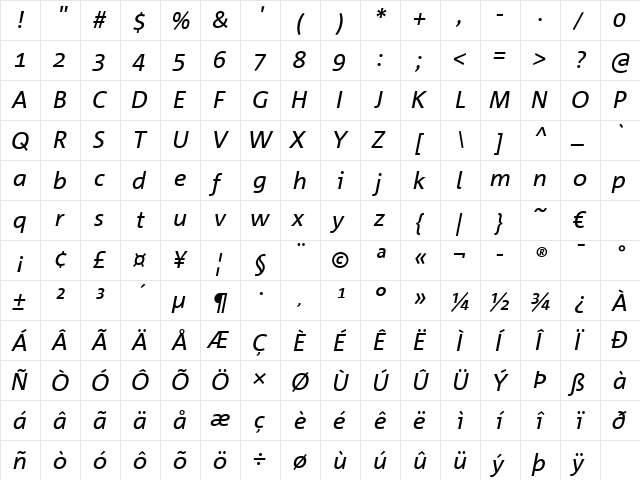
CorpidOffice Italic
| Designer | Luc[as] de Groot, FontFabrik |
Design Context for CorpidOffice Typeface
CorpidOffice is a composed and adaptable typeface that performs quietly and consistently across a wide range of design contexts. Its italic angle brings a sense of urgency and motion to the letterforms.
Pro Tip: Use CorpidOffice for emphasis, pull quotes, and subheadings where its slanted energy can add rhythm to the layout.